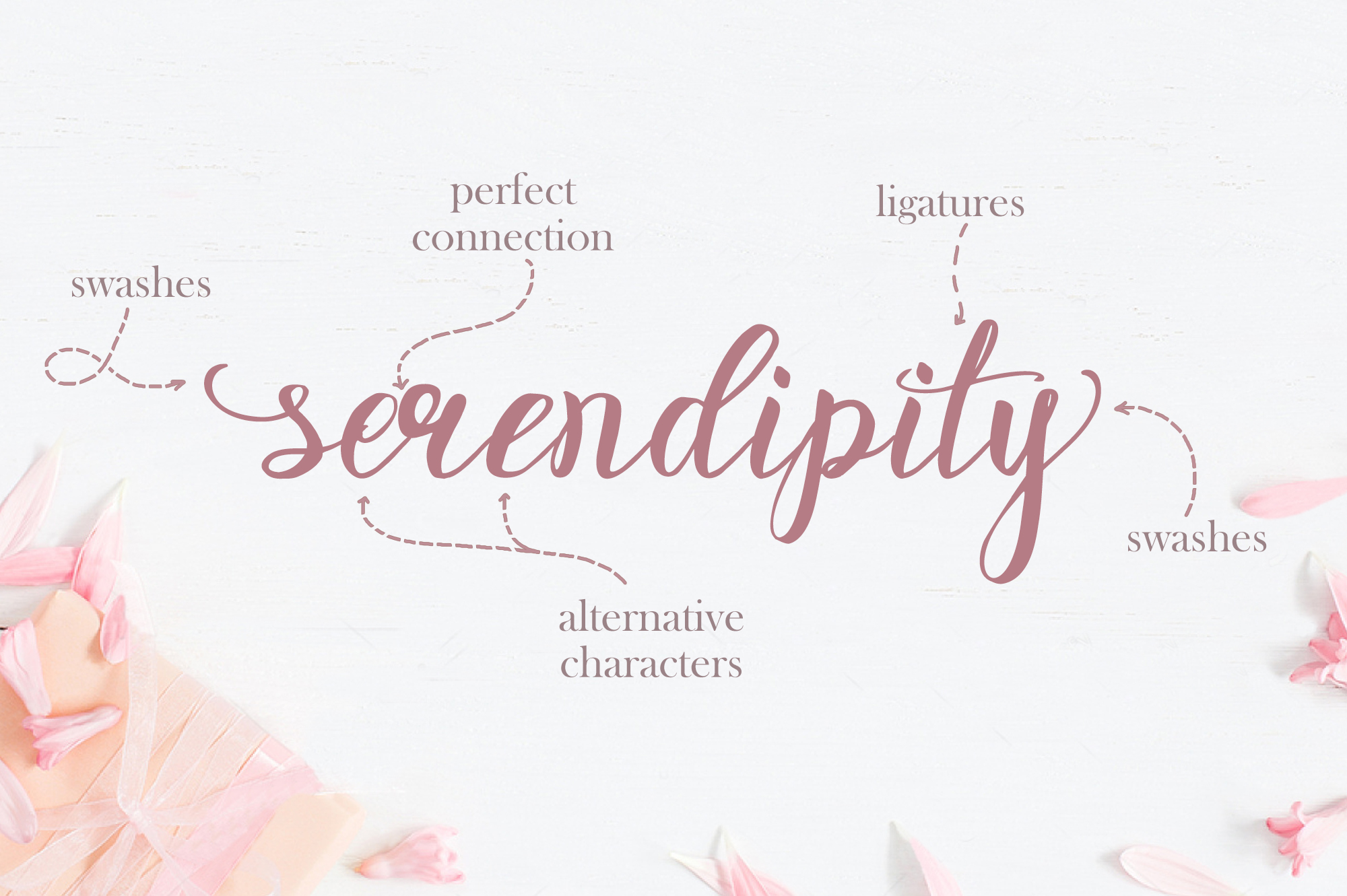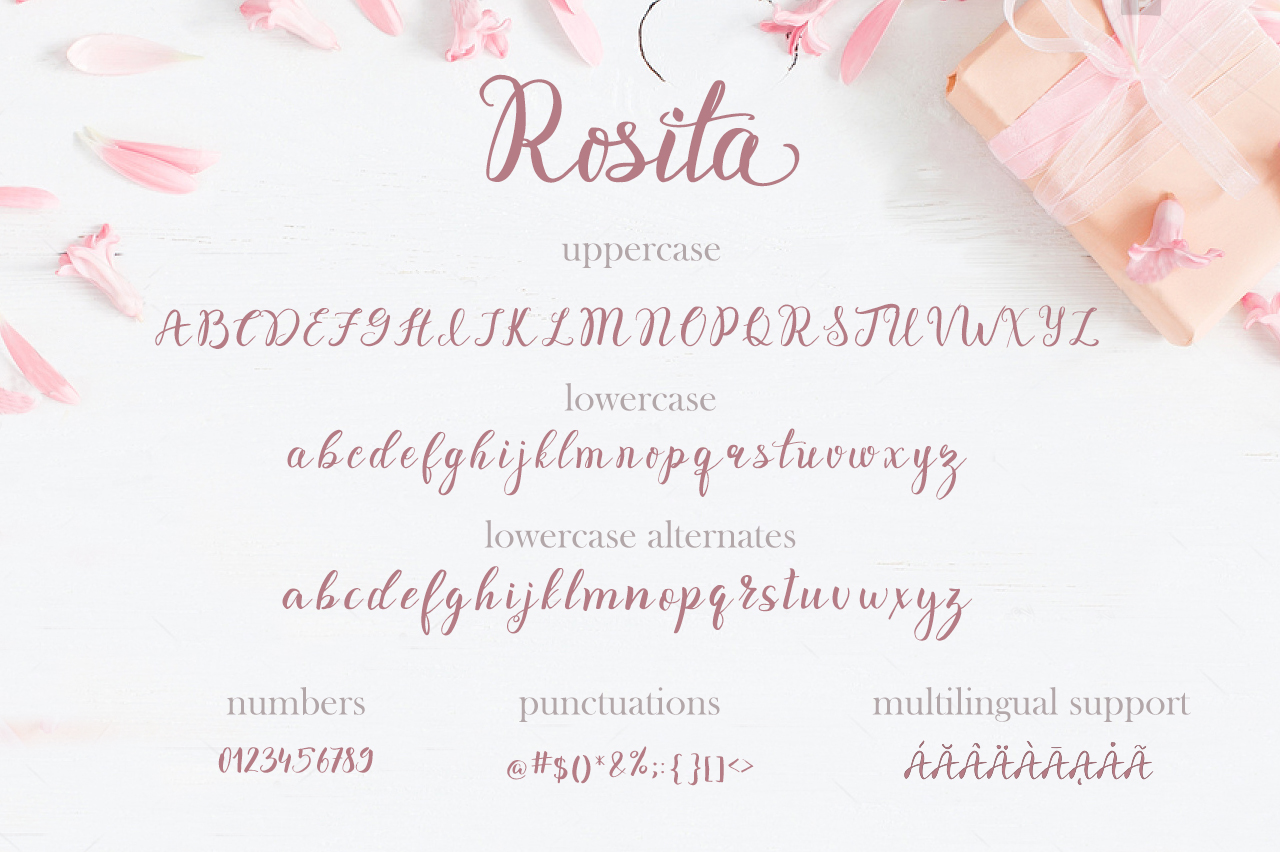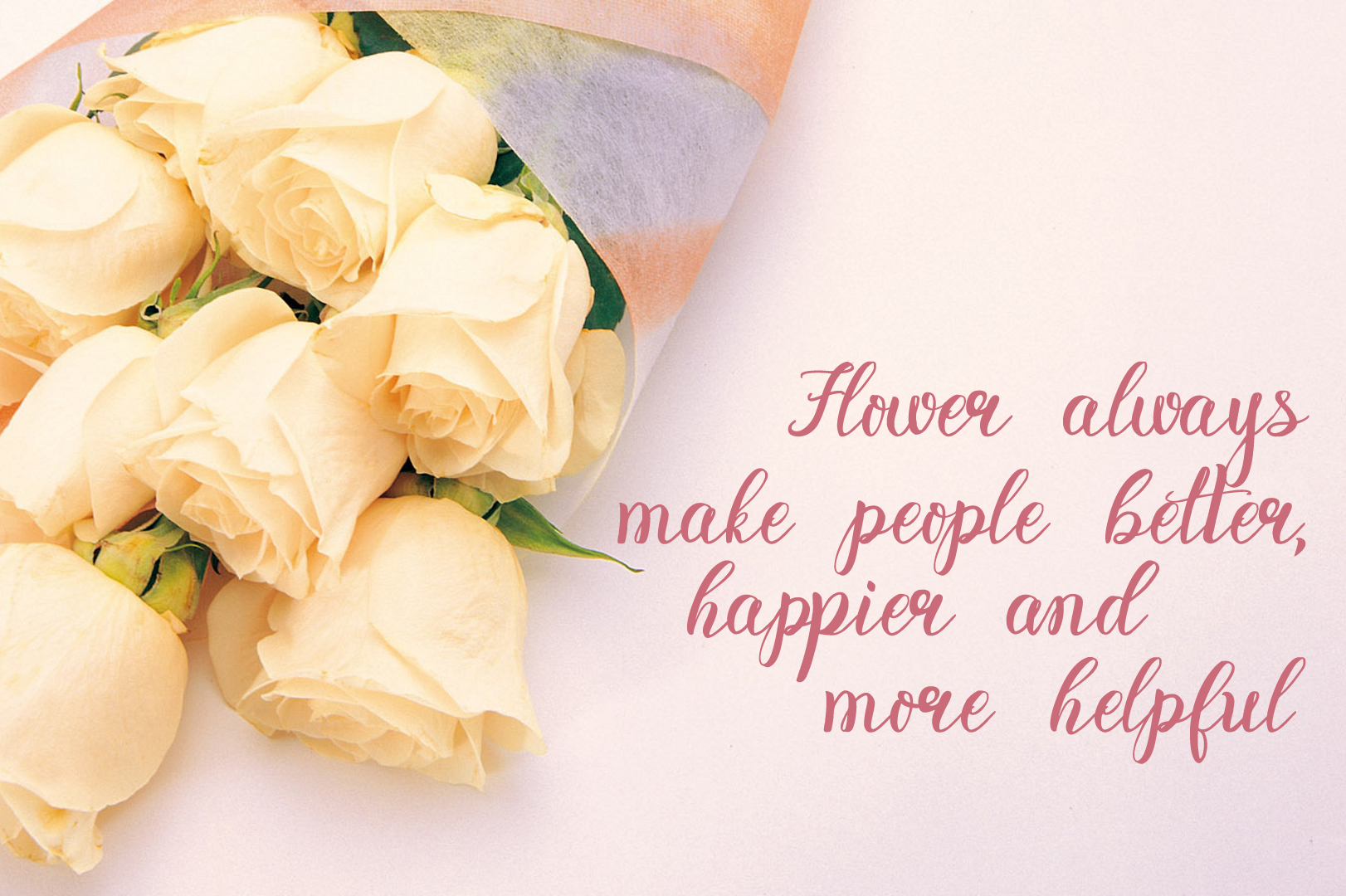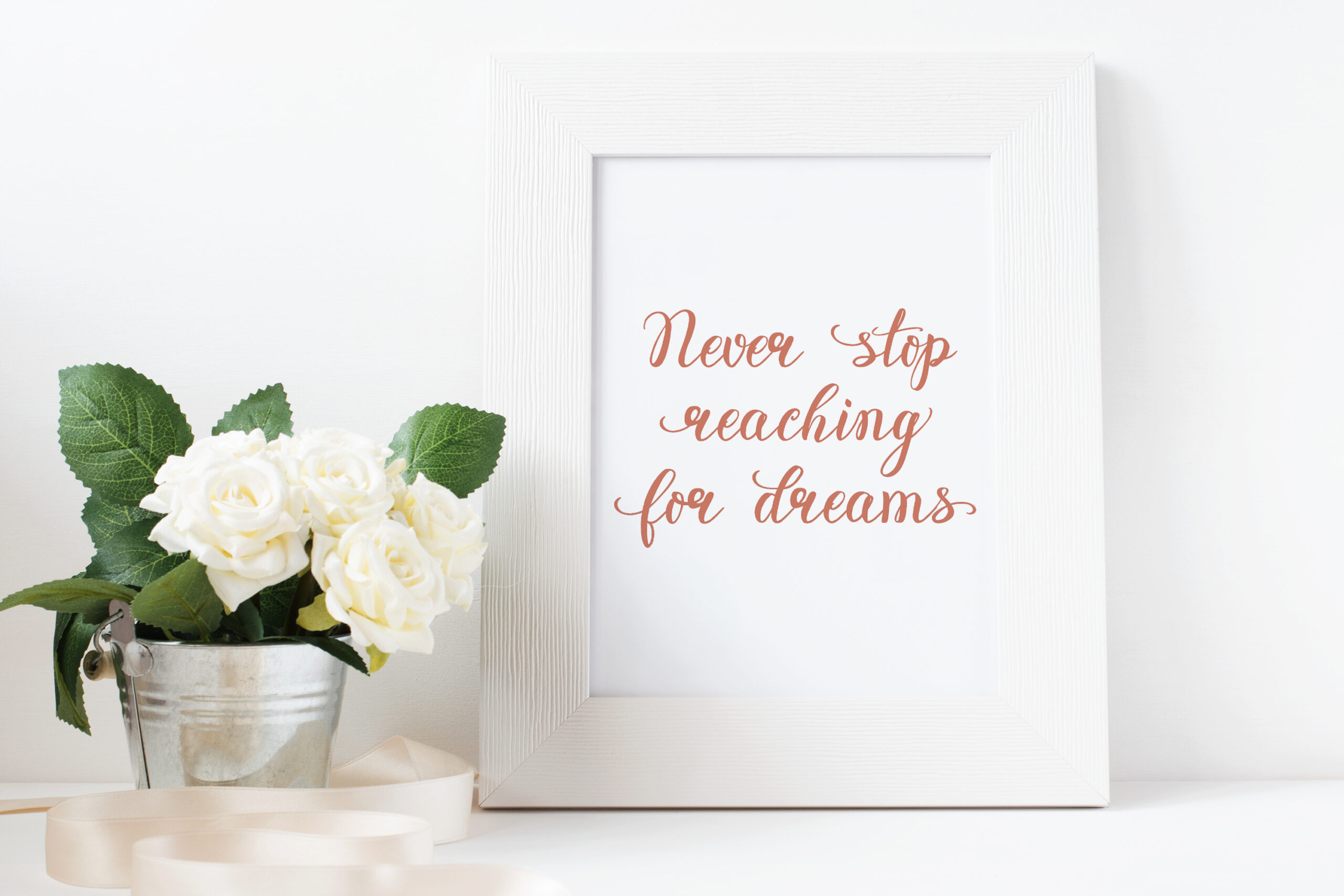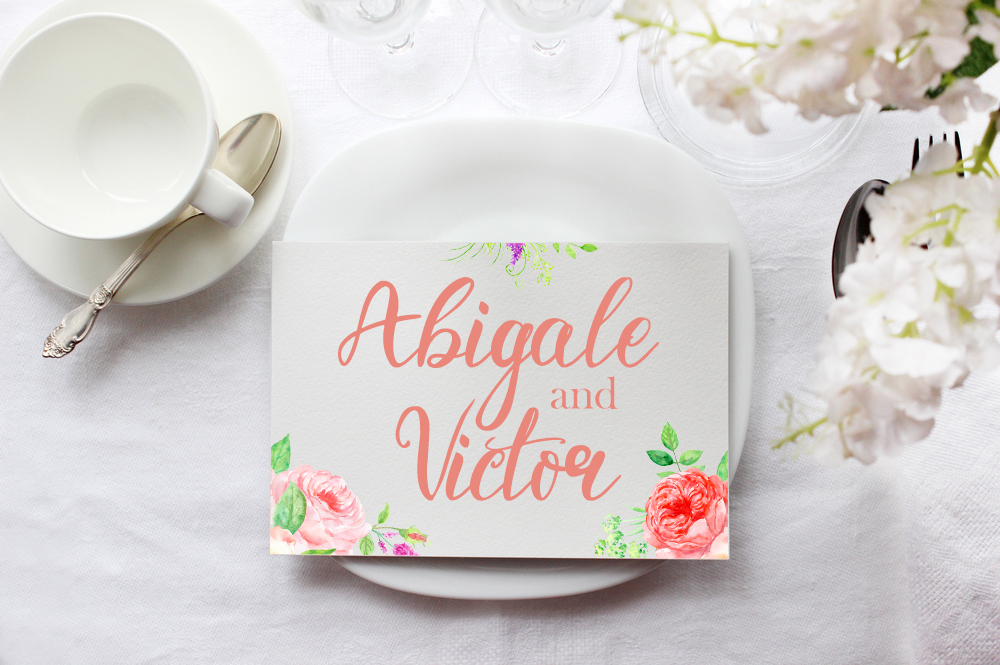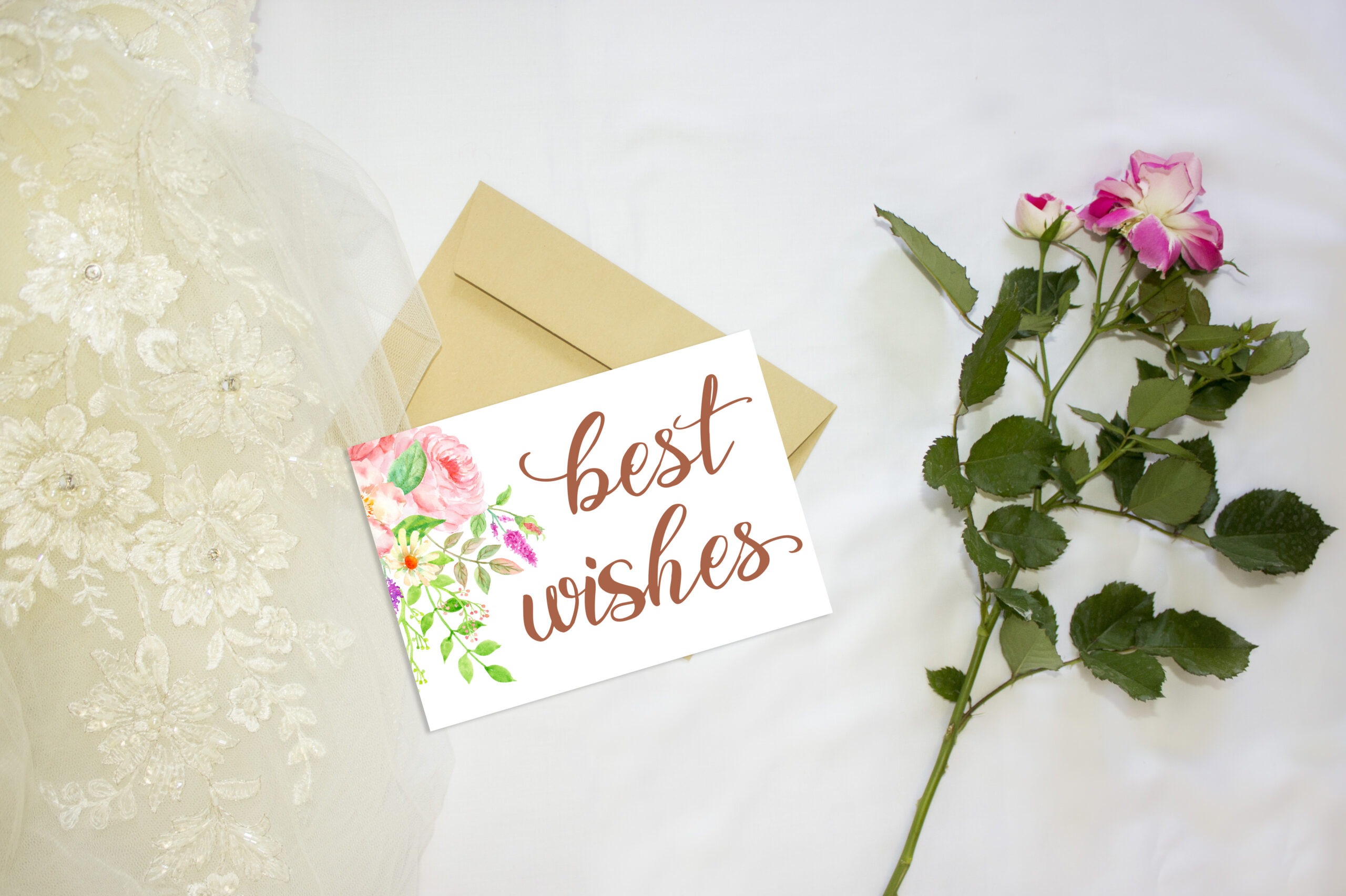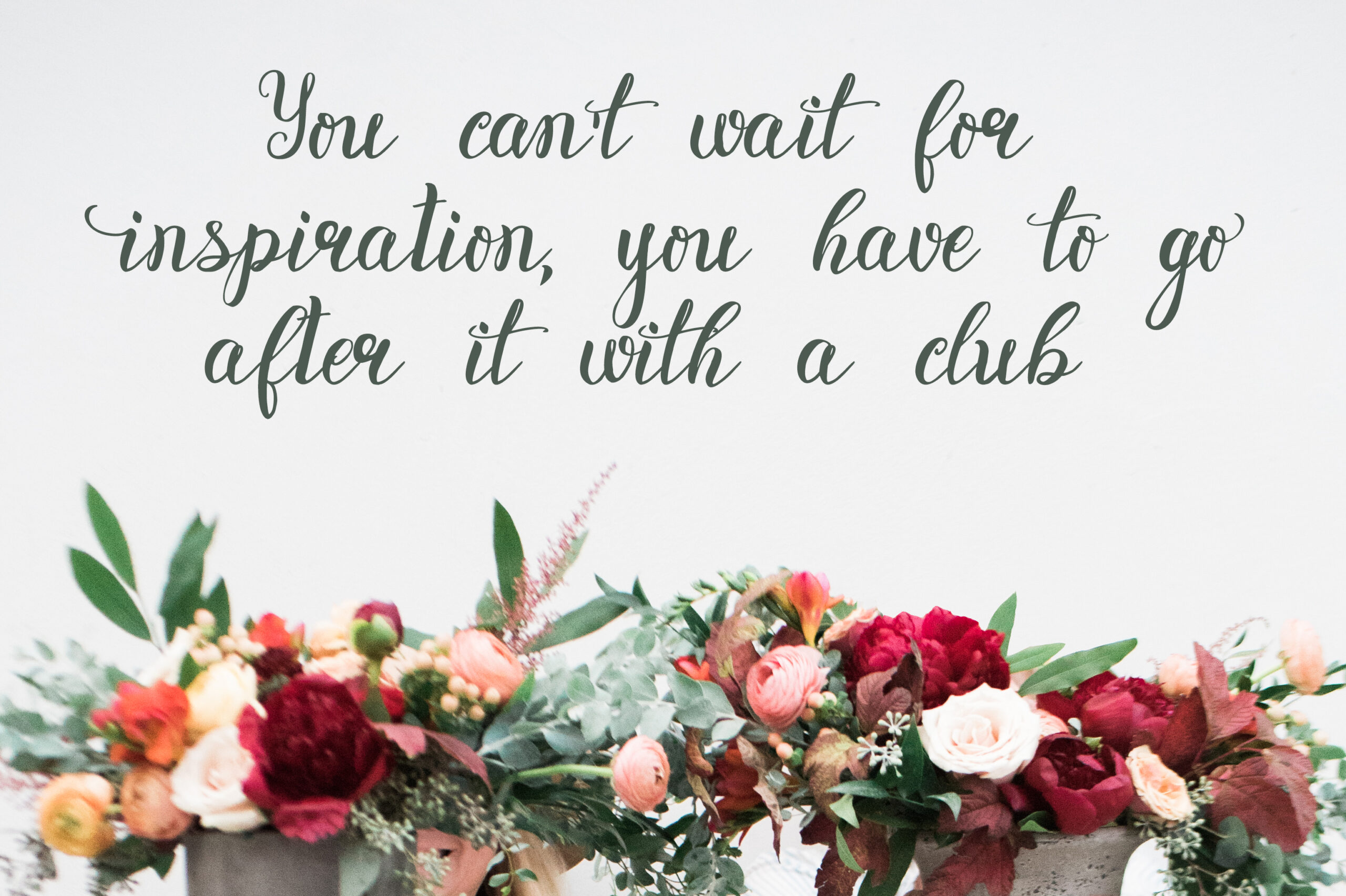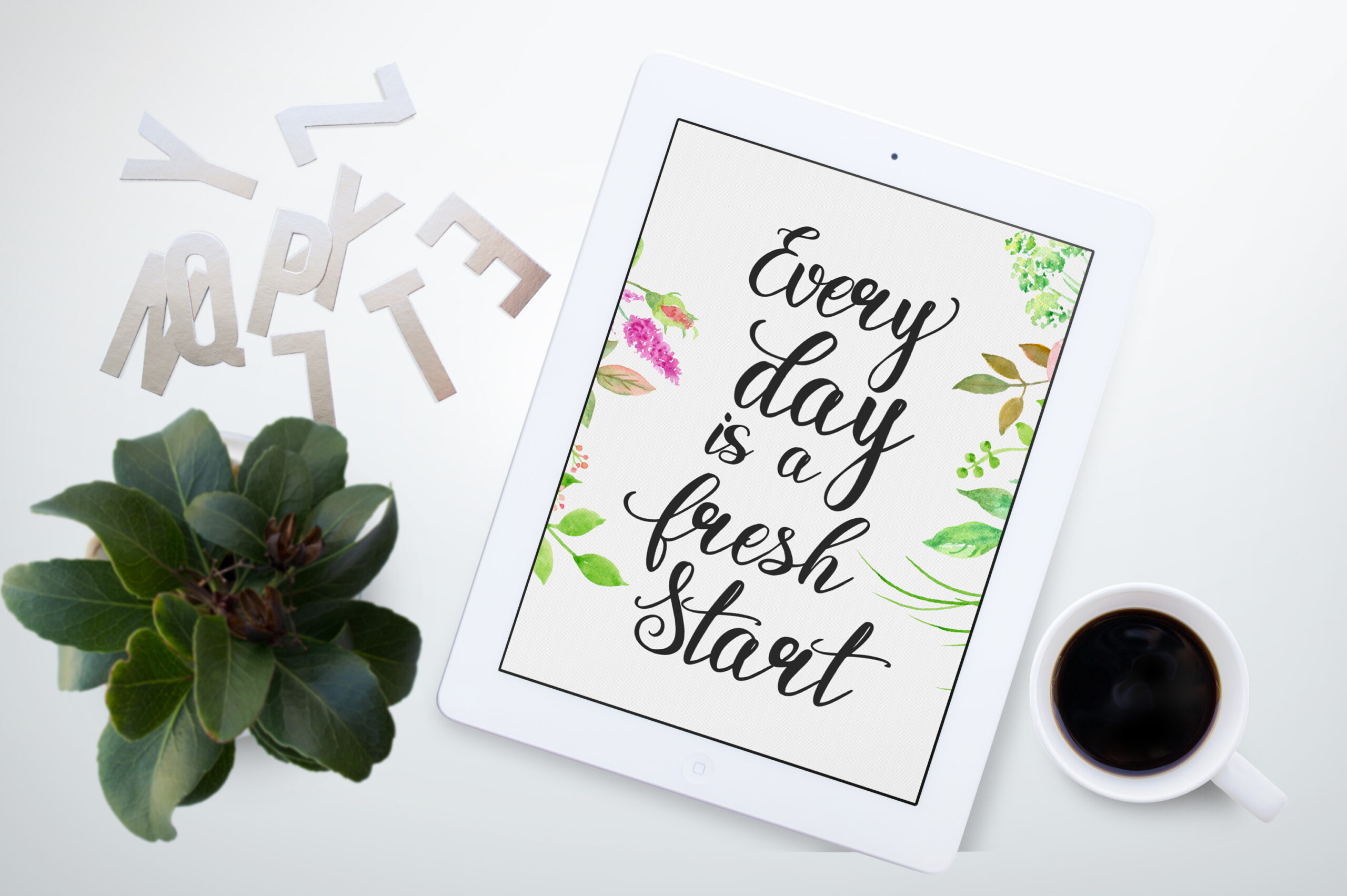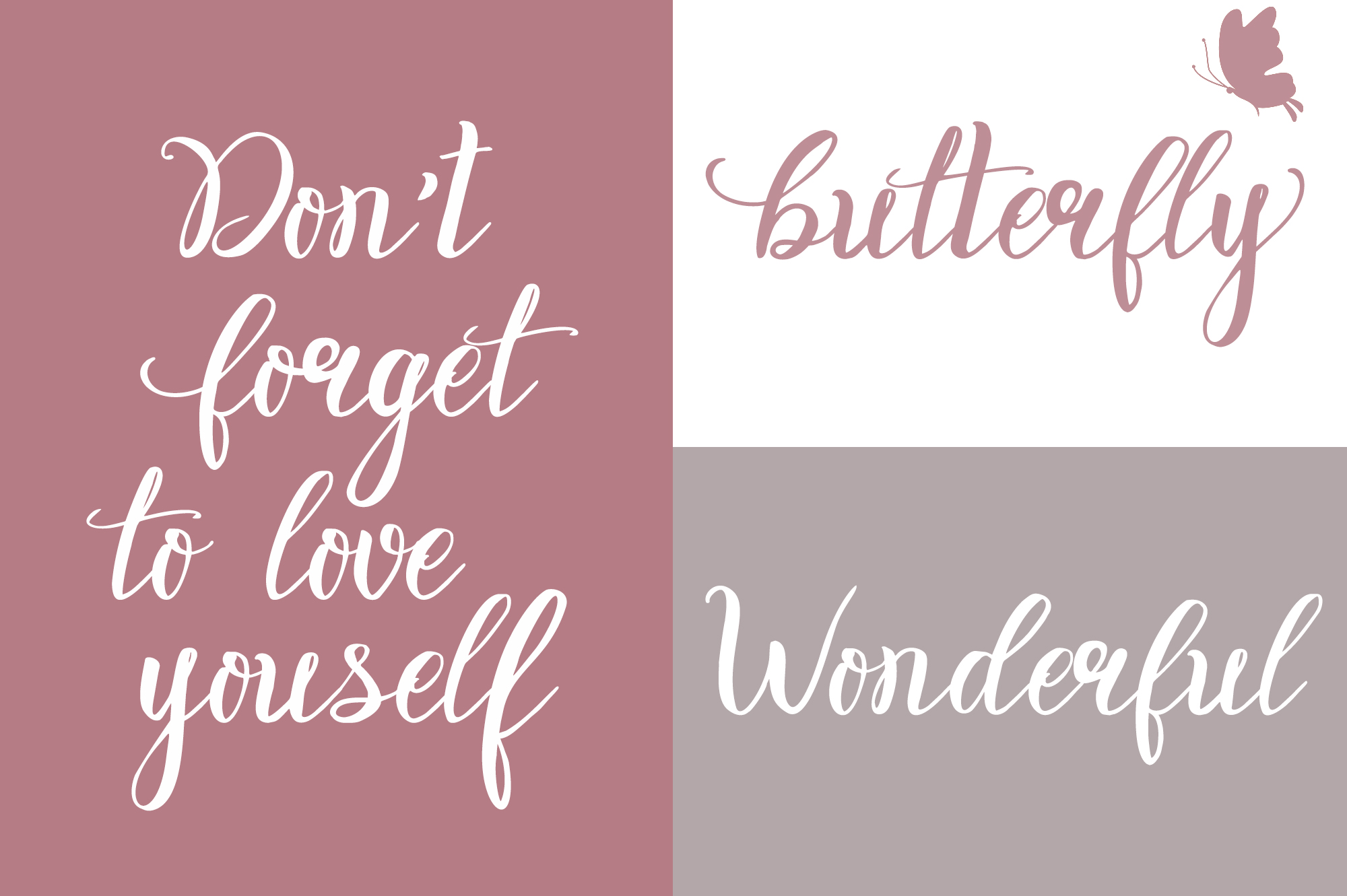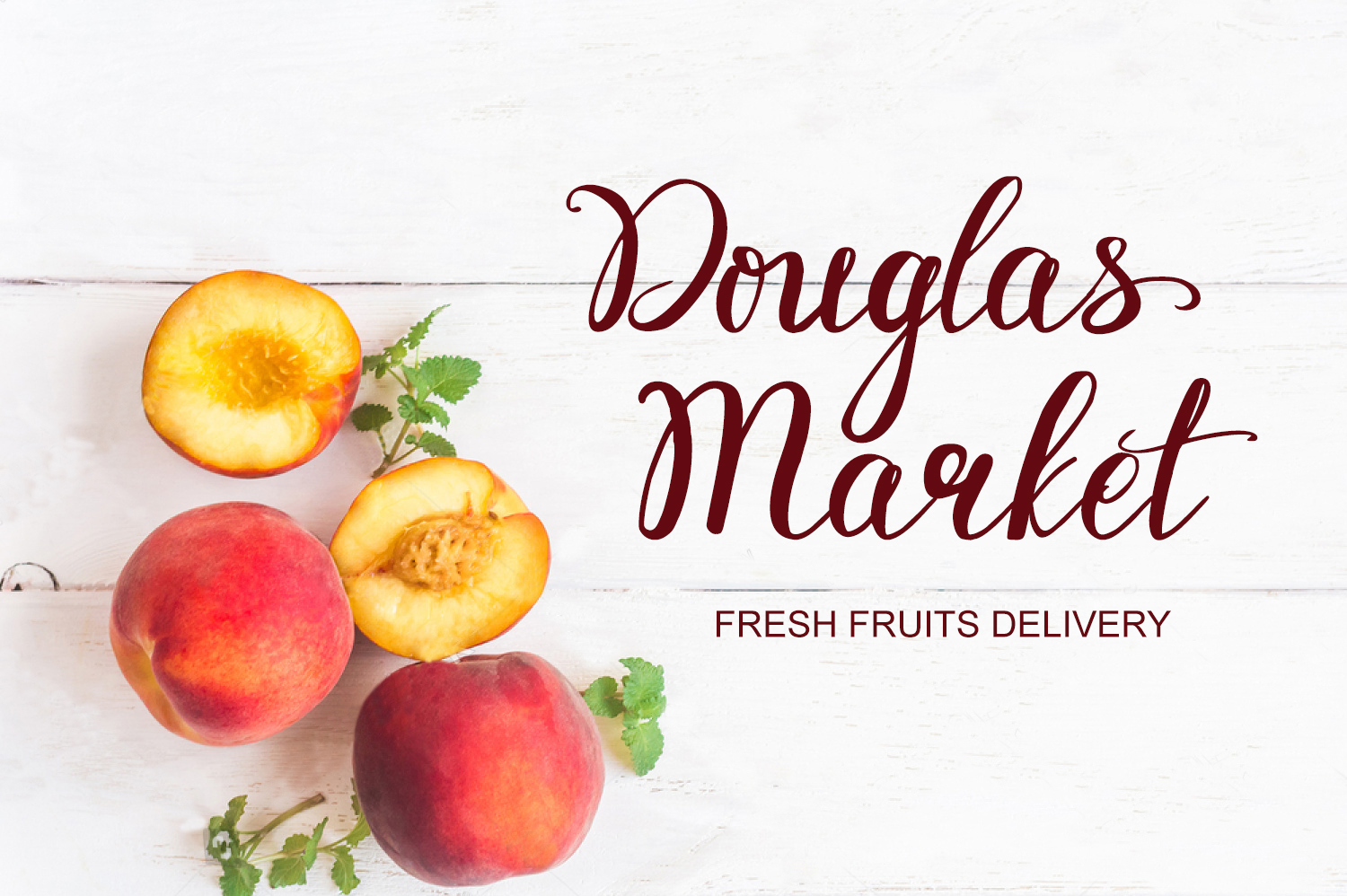
Rosita Script Font
About Rosita Script Font
Rosita is a stunning modern brush font, one that can be used simply and easily due to a wide assortment of character options. This font makes custom lettering a dream.